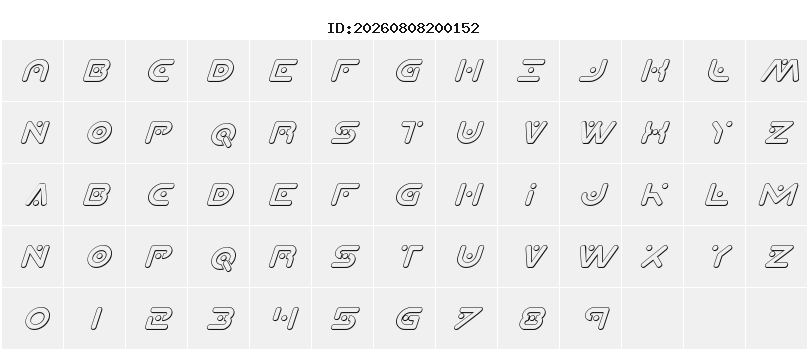
• Font Name: Planet X 3D Italic
• Full Font Name: Planet X 3D Italic
About Planet X 3D Italic.ttf
Planet X 3D Italic.ttf is a modern, elegant sans-serif font designed for ultimate readability and visual harmony. Perfect for branding, headlines, web design, and print materials.